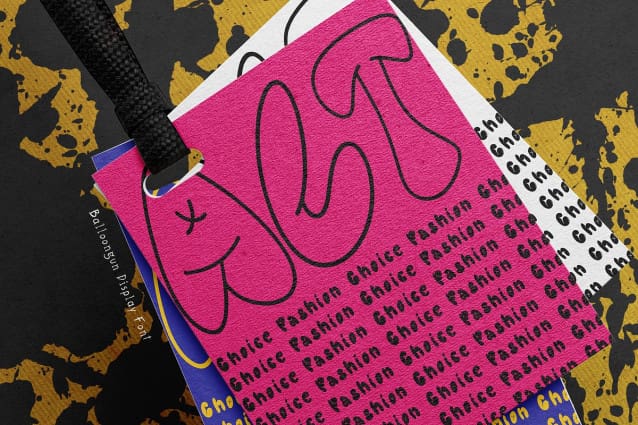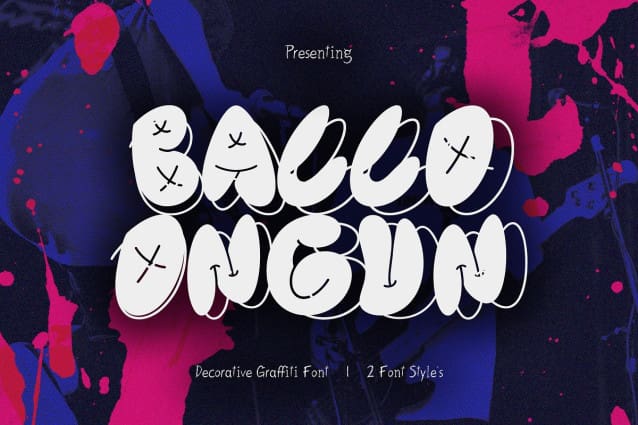
Balloongun Display Font
Balloongun Display Font is a decorative graffiti font that bursts onto the scene with its playful style and bold presence featuring exaggerated curves, sharp angles, and dynamic swirls. This expressive nature captures the essence of graffiti art and injects a playful energy into any design. The font comes in two distinct styles: Regular (stroke) and Black (fill). The Regular style offers a classic outlined look, ideal for adding a touch of urban edge to your designs.
The Black style, in bold black, delivers a more impactful and graphic presence, perfect for making a statement. Its playful style and graffiti-inspired aesthetic make it a great choice for designs that want to stand out from the crowd. Balloongun offers versatility for a range of design applications.